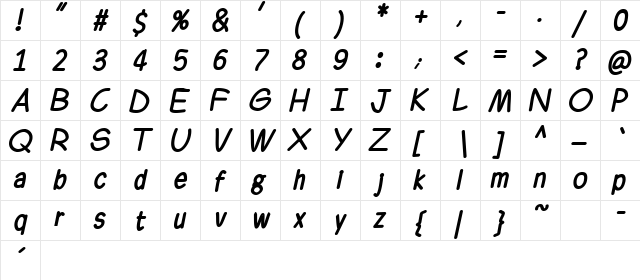
Ferrero Rocker Bold Italic
Design Context for Ferrero Rocker Typeface
Ferrero Rocker is a composed and adaptable typeface that performs quietly and consistently across a wide range of design contexts. The dynamic lean of this cut emphasises speed and emphasis in any layout. The heavy weight commands attention and anchors typographic hierarchies.
Pro Tip: Use Ferrero Rocker for emphasis, pull quotes, and subheadings where its slanted energy can add rhythm to the layout.